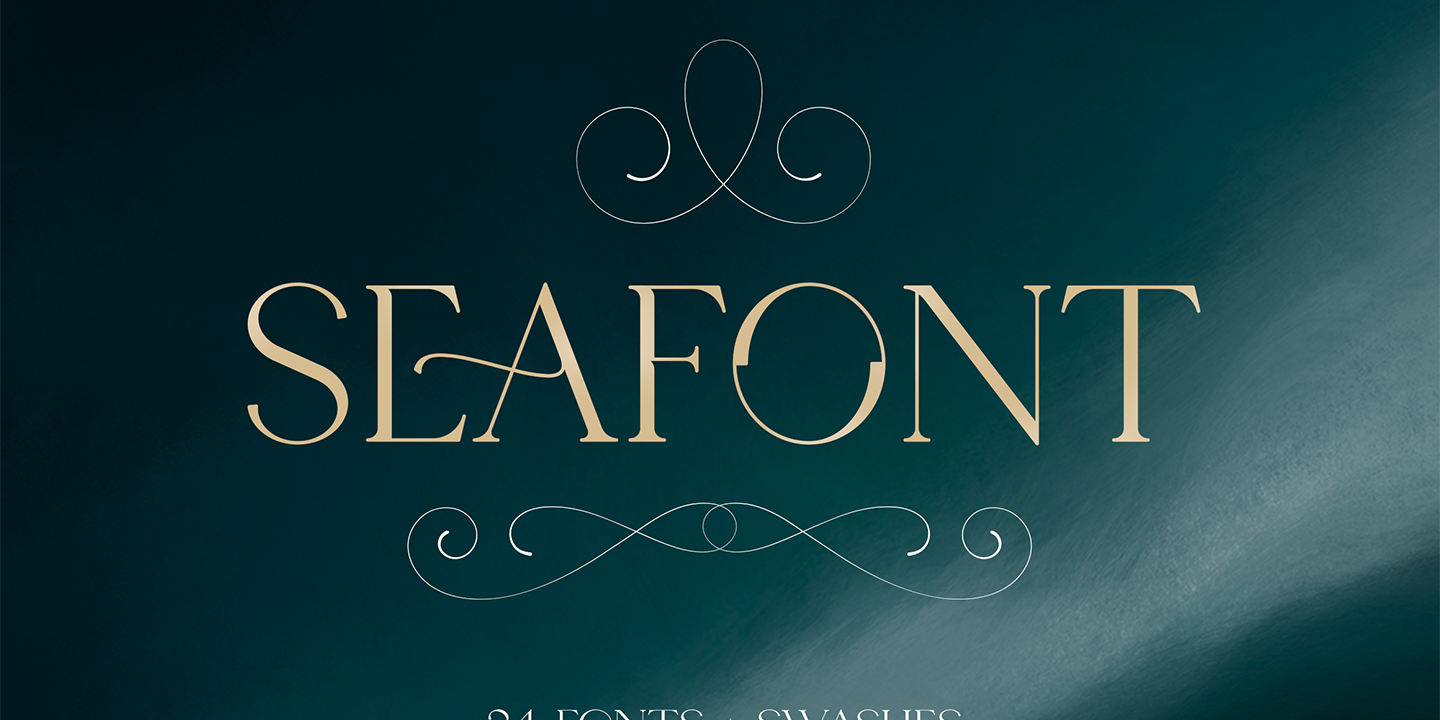
Seafont Font is perfect for oceanfront restaurants, marine biology centers, coastal resort branding, nautical equipment companies, seafood market signage, yacht club materials, maritime museums, beach lifestyle brands, sailing expedition logos, and authentic oceanic adventure designs.
Seafont Font is exciting because it flows with the endless rhythm and mysterious depths of the ocean through fluid letterforms that capture the eternal movement of waves and the timeless call of the sea, making it perfect for brands celebrating maritime heritage and oceanic adventure.
The Seafont Font family includes regular and bold weights with wave-inspired alternates, nautical ornaments, and oceanic decorative elements, providing designers with maritime tools for creating typography that sails with authentic sea spirit and coastal authenticity.
When your project needs oceanic authenticity and maritime adventure appeal, Seafont Font Free Download provides the perfect typographic voyage for coastal communications. This flowing display typeface combines maritime tradition with contemporary functionality, ensuring your brands resonate with audiences seeking genuine ocean experiences and nautical lifestyle appeal. The fluid letterforms and sea-inspired styling make this font an essential choice for coastal businesses, maritime organizations, and any application where ocean adventure, nautical heritage, and seaside authenticity are crucial for establishing credibility and connecting with communities that live for the call of the sea and the endless adventure that awaits beyond the horizon where sky meets water in eternal blue embrace.